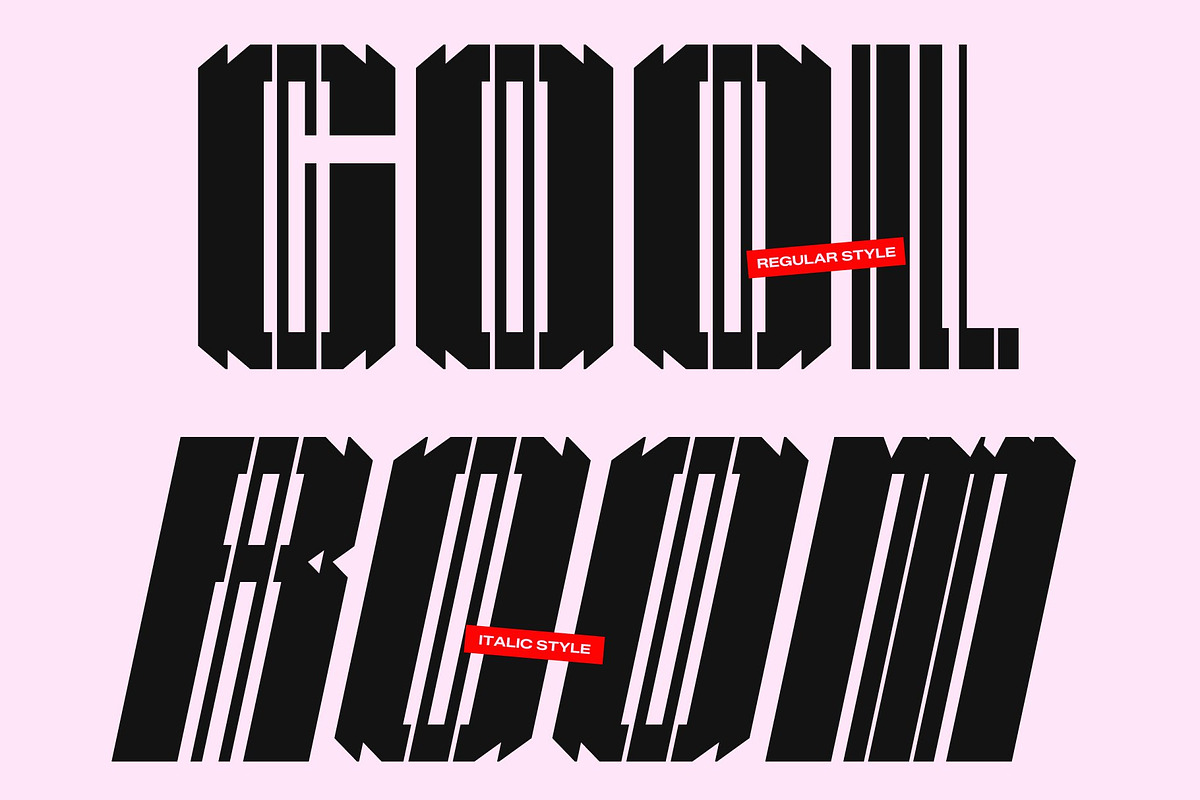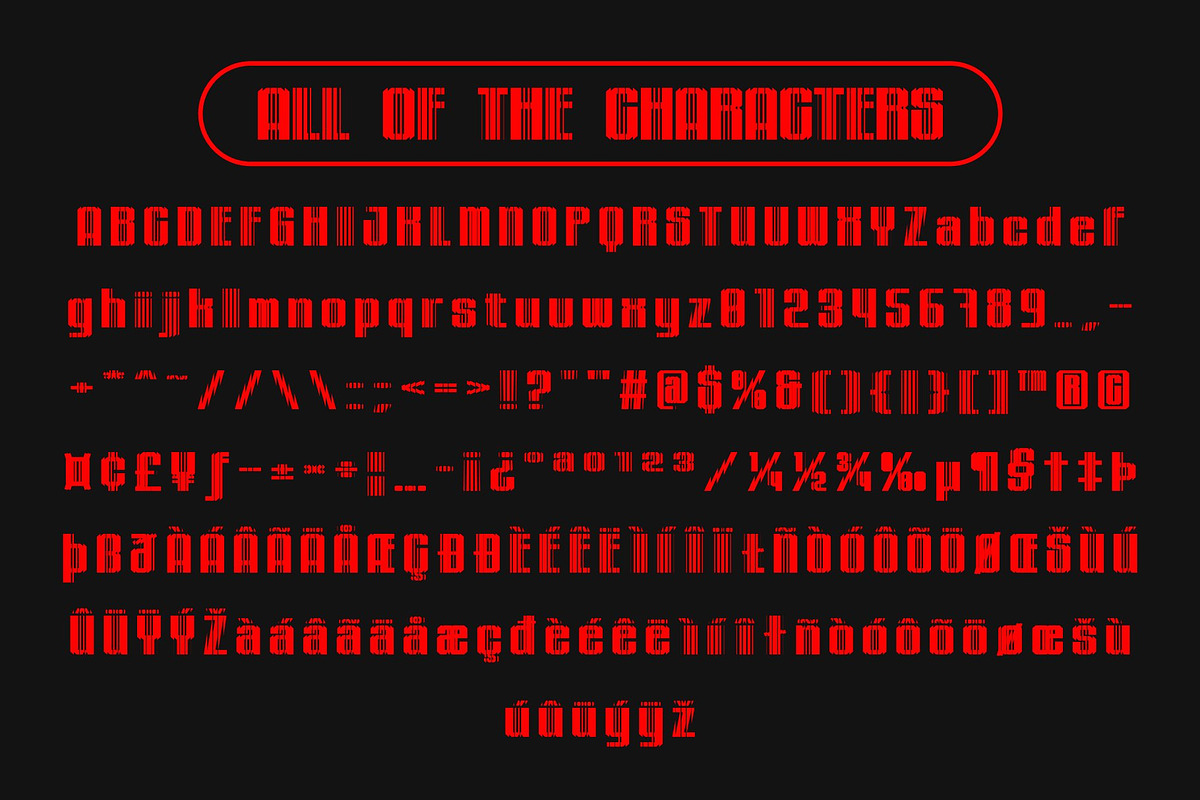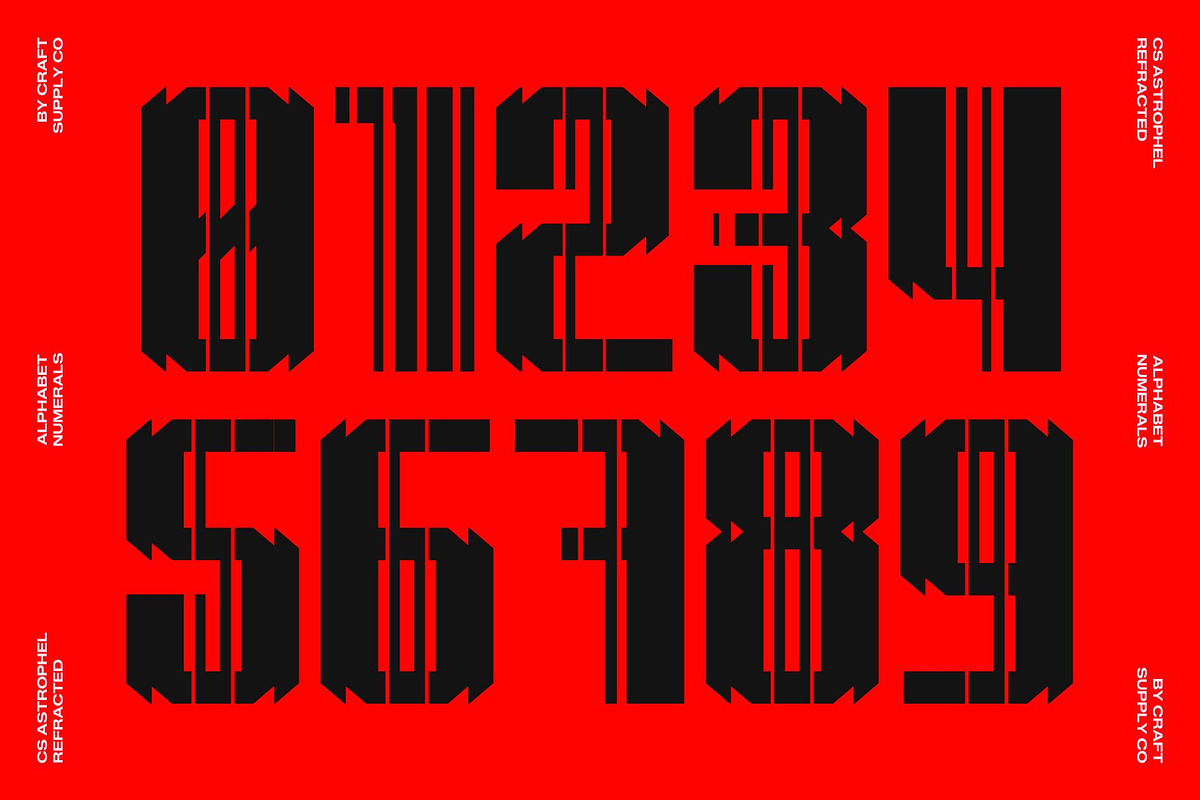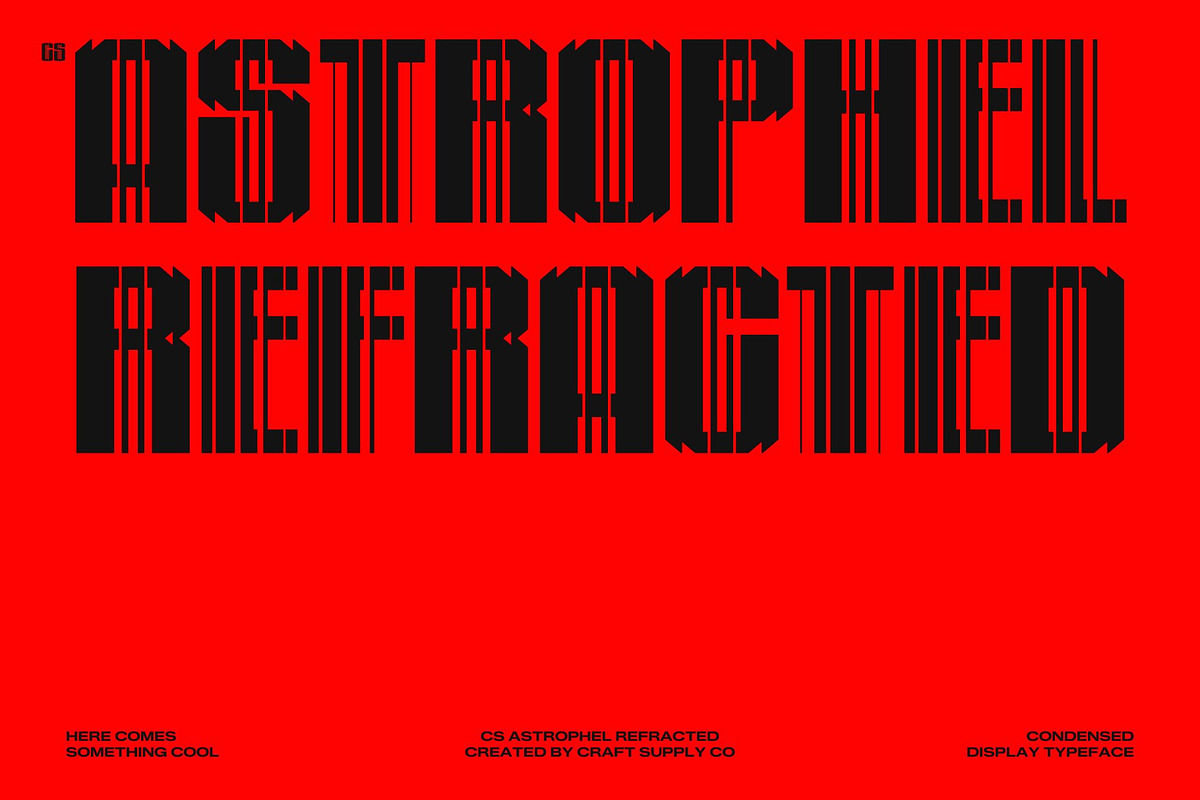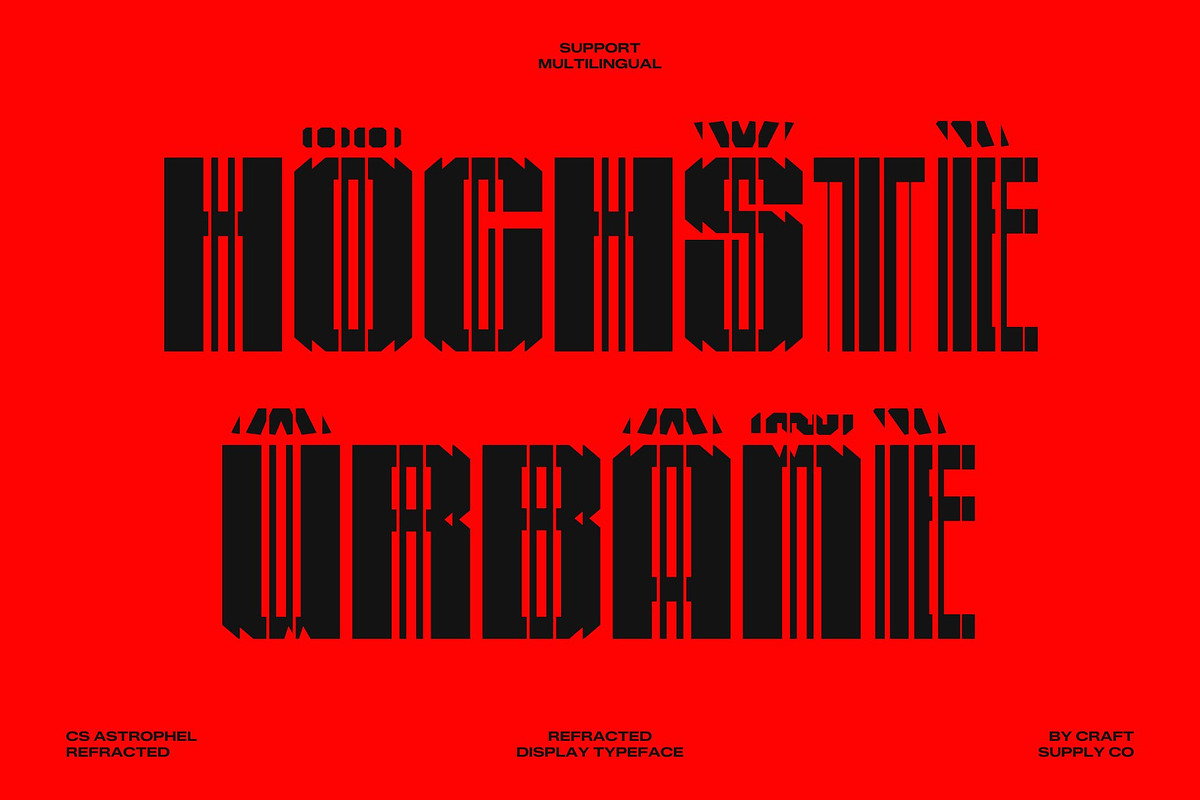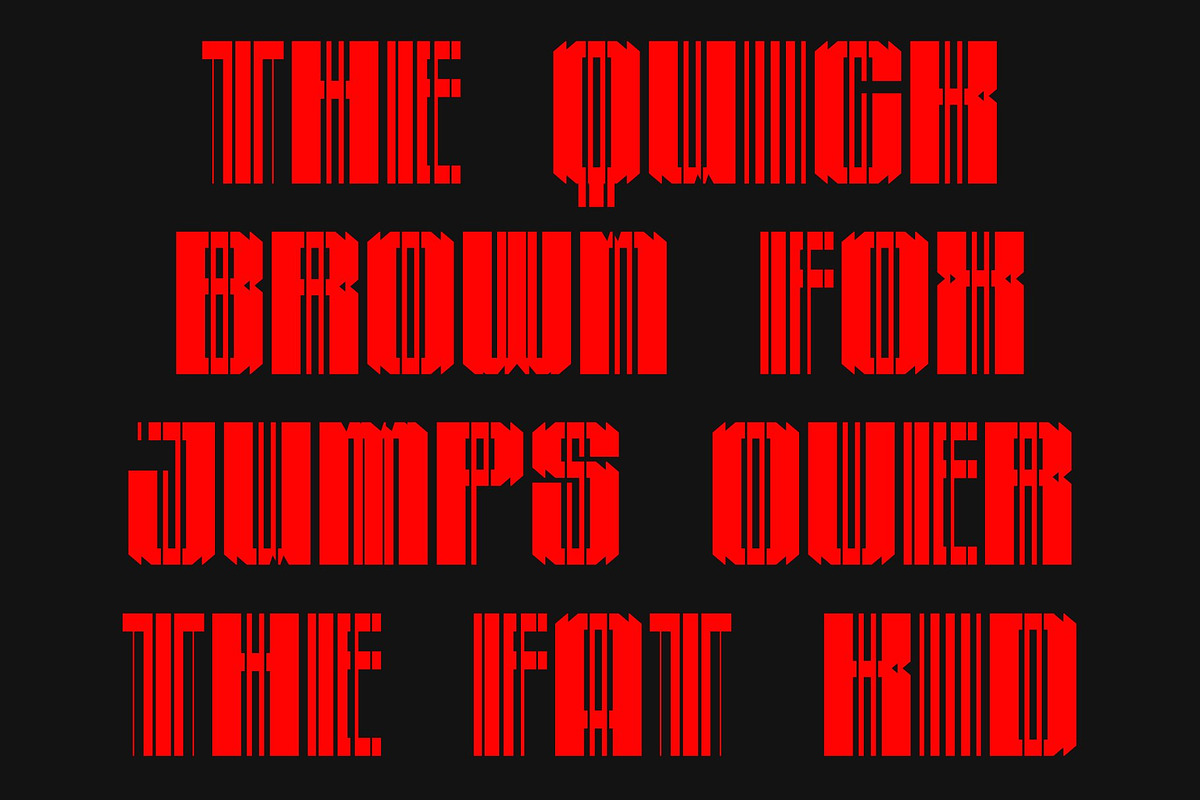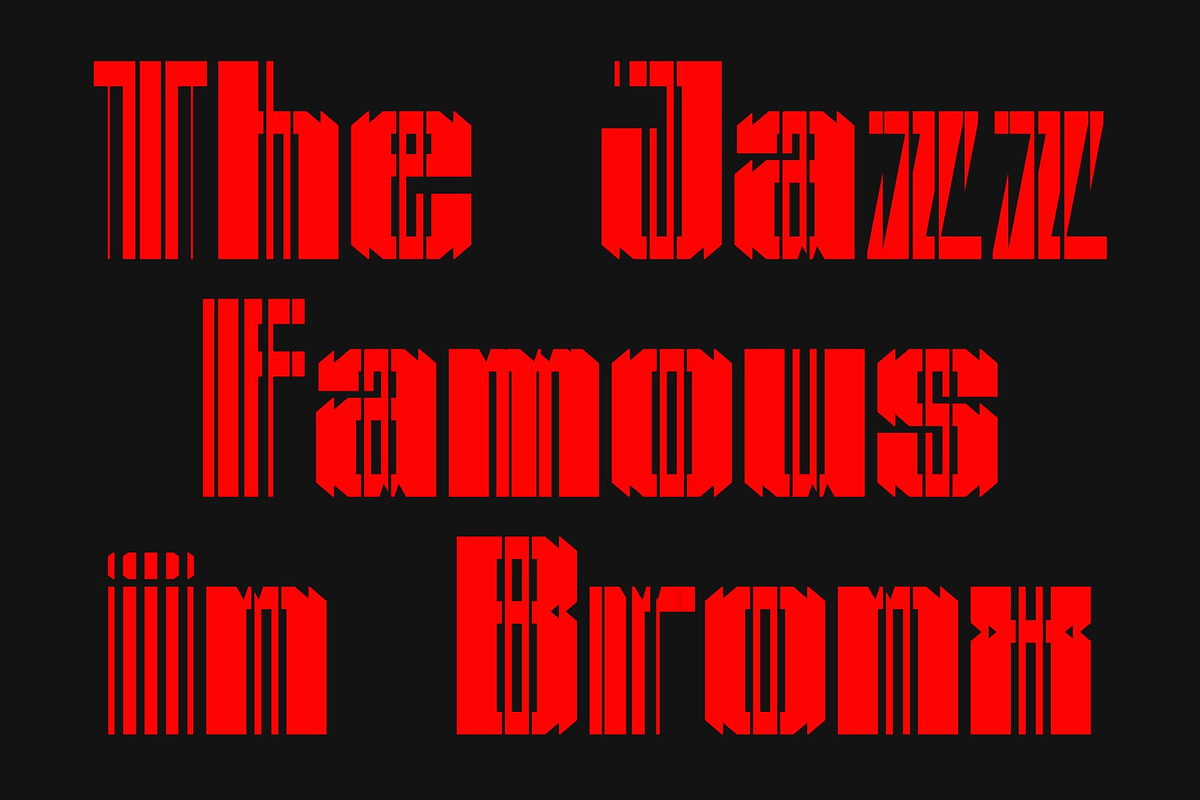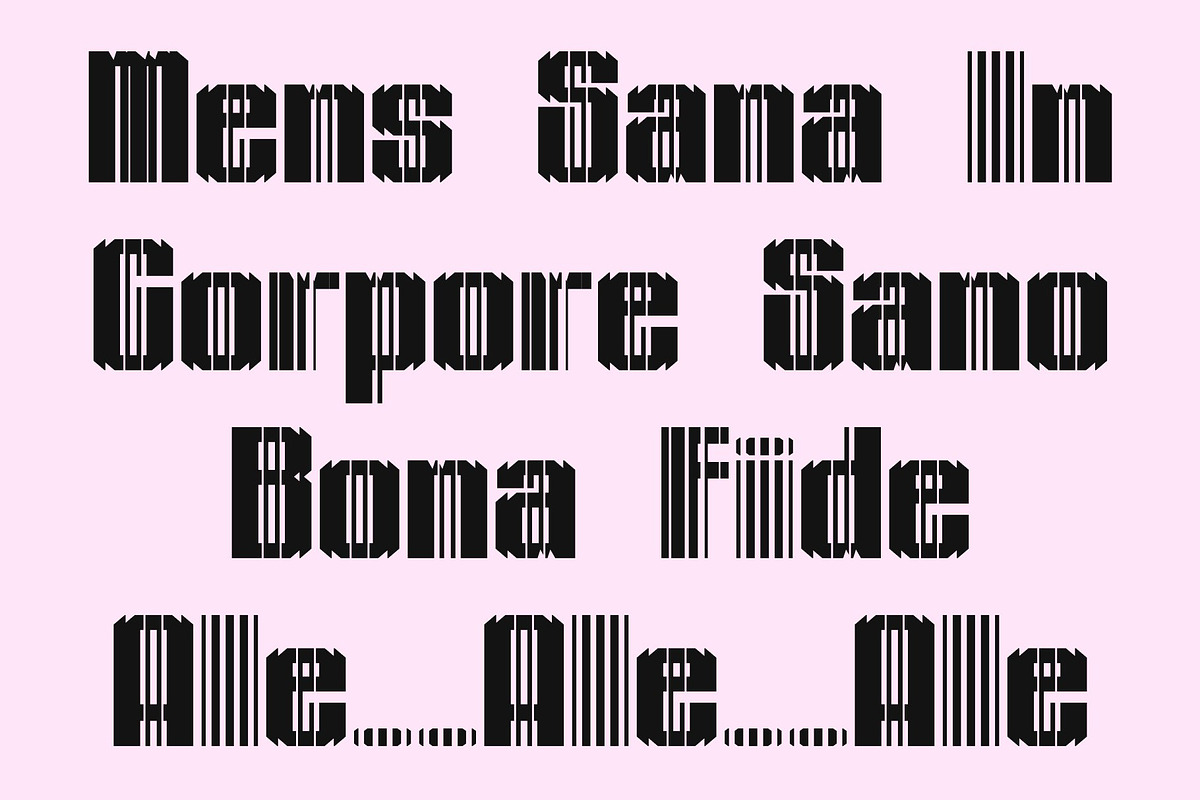
CS Astrophel Refracted
CS Astrophel Refracted – Condensed Sans Serif Font: Industrial Precision with Futuristic Light Distortion
Tall, Narrow Structure Built for Maximum Impact This is a modern condensed sans serif typeface engineered for strong visual presence and space efficiency. Its tall, narrow proportions create a sleek and commanding rhythm that allows more information to fit into compact layouts without sacrificing readability.
Industrial Geometry with Futuristic Distortion Rooted in industrial aesthetics, this font features solid geometric shapes and a clean, functional approach to form. The refracted effect introduces sharp, light-inspired slices across the letterforms, adding a subtle glitch-like distortion that enhances its technical personality. This fusion of industrial clarity and futuristic detail creates a distinctive and modern typographic voice.
Strong Readability with Technical Confidence Despite its condensed proportions, this font maintains excellent clarity and balance. The carefully constructed strokes and open spacing ensure that text remains legible even in dense arrangements. Its bold and structured appearance communicates reliability and professionalism, making it perfect for data-driven and technology-focused design systems.
Perfect for Tech Branding and Modern Communication This font excels in technology branding, startup identities, UI design, packaging, and editorial layouts. Its condensed efficiency and refracted modernity deliver a forward-thinking tone that feels serious, sleek, and innovative. Whether used for logos, headlines, or digital interfaces, this typeface transforms compact typography into a powerful and contemporary visual statement.
CS Astrophel Refracted Regular
CS Astrophel Refracted Italic